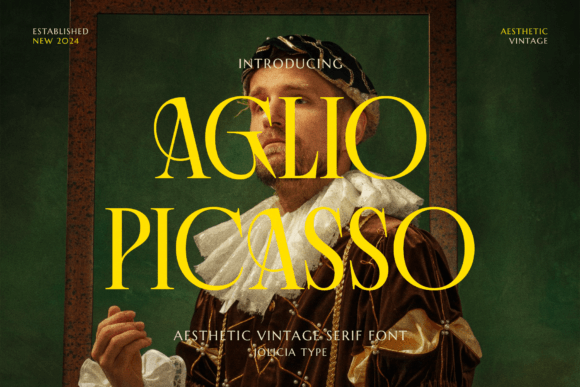
Aglio Picasso Font: Elevate Your Designs with a Touch of Vintage Elegance
In the world of typography, fonts play a crucial role in defining the aesthetic and tone of any design project. Whether you’re working on branding, invitations, posters, or any other visual material, the right font can make all the difference. If you’re on the lookout for a typeface that combines classic charm with a dash of artistic flair, look no further than the Aglio Picasso font. This vintage serif font is your go-to choice for adding a bit of elegance and a lot of style to your designs.
Say Hello to Aglio Picasso: Your New Go-To Vintage Serif Font
Aglio Picasso is not just another font; it’s a statement piece for your designs. With its smooth curves and unique details, this font is perfect for projects that demand a mix of elegance and retro cool. The name itself evokes a sense of artistic history, paying homage to the legendary artist Pablo Picasso. Just as Picasso was known for his pioneering work in Cubism and his influence on modern art, the Aglio Picasso font aims to bring a touch of that artistic genius to your typography.
Perfect for a Variety of Design Projects
Aglio Picasso’s versatility makes it an excellent choice for a wide range of design applications. Here are some of the areas where this font truly shines:
- Branding: Establish your brand’s identity with a sophisticated and memorable typeface. Aglio Picasso’s unique character can help your brand stand out in a crowded market.
- Invitations: Whether it’s a wedding invitation, a birthday party invite, or any other special occasion, Aglio Picasso adds a touch of class and elegance that will leave a lasting impression.
- Posters: Create eye-catching posters for events, promotions, or informational campaigns. The font’s vintage appeal can grab attention and convey a sense of nostalgia or timelessness.
- Packaging: For product packaging, Aglio Picasso can add a layer of sophistication and appeal. Its classic look can make your product stand out on store shelves.
The Smooth Curves and Unique Details of Aglio Picasso
One of the standout features of the Aglio Picasso font is its smooth curves and unique typographic details. These characteristics not only give the font its distinctive look but also contribute to its readability. Even in smaller sizes, Aglio Picasso remains clear and legible, making it a practical choice for a variety of applications.
The font’s design strikes a perfect balance between vintage charm and modern legibility. The serifs add a traditional touch, while the rounded edges soften the overall appearance, making it friendly and approachable. This balance is crucial for designers who want their work to feel both classic and contemporary.
Readability in Various Sizes
Aglio Picasso’s readability is one of its strongest assets. In larger sizes, it’s perfect for headlines and titles, offering a stylish and impactful presence. In smaller sizes, it transitions smoothly to body text, ensuring that your message is conveyed clearly and effectively.
This versatility in sizing makes Aglio Picasso a highly functional font for any design project. You can use it consistently across different materials, from business cards to billboards, without worrying about legibility issues.
A Dash of Artistic Flair
Aglio Picasso isn’t just a font; it’s an expression of artistic flair. Its design is inspired by the rich artistic heritage of the past, yet it feels fresh and contemporary. This blend of old and new makes it an exciting choice for designers looking to push the boundaries of traditional typography.
The font’s artistic qualities can elevate your designs, making them more engaging and visually appealing. Whether you’re aiming for a sophisticated, luxurious feel or a playful, vintage vibe, Aglio Picasso provides the perfect foundation.
How Aglio Picasso Stands Out
In a sea of modern sans-serif fonts, Aglio Picasso stands out with its unique character. Here’s how it compares to other fonts:
- Uniqueness: Aglio Picasso offers a distinctive look that sets it apart from more generic fonts.
- Versatility: It can be used for both headline and body text, making it a versatile choice for comprehensive design projects.
- Elegance: The font’s classic roots give it an air of sophistication that’s hard to achieve with more contemporary typefaces.
Tips for Implementing Aglio Picasso in Your Designs
To make the most of Aglio Picasso, consider the following tips:
- Pair it with Simplicity: Let Aglio Picasso be the star of your design. Pair it with simpler fonts or ample white space to ensure it stands out.
- Experiment with Sizes: Play with different sizes to create visual hierarchy and add depth to your designs.
- Consider Color: The font looks great in bold, rich colors that complement its vintage feel. Experiment with color palettes that enhance its classic appeal.
Aglio Picasso is more than just a font; it’s a design statement. With its vintage serif charm, artistic flair, and exceptional readability, it’s the perfect choice for designers looking to add a touch of elegance and style to their projects. Whether you’re working on branding, invitations, posters, or any other design material, Aglio Picasso is sure to make your work stand out.
So, why settle for ordinary when you can have a font that brings a bit of classic charm and a lot of style to your designs? Say hello to Aglio Picasso, your new go-to vintage serif font.